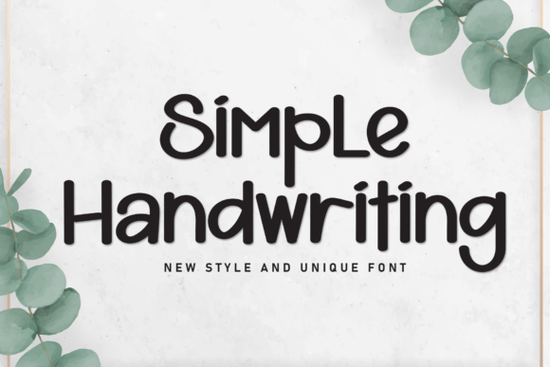
When you need a typeface that feels personal but remains easy to read, the Simple Handwriting Font is a highly reliable choice. It brings a fresh, lighthearted charm to digital layouts without sacrificing legibility. Crafters and small business owners often struggle to find hand-lettered styles that don't look messy on smaller screens or intricate vinyl cuts. This unique display font solves that problem by offering a beautifully human touch with a highly legible structure.
How does it perform on crafting machines?
If you are cutting vinyl with a Cricut or Silhouette, you already know that overly swirly scripts can tear or weed poorly. This typeface avoids those frustrating issues. The comfortable, cozy personality of the letters means the paths are clean and the connections are sturdy. It acts as an instant shortcut for designs that need to feel approachable. You can use it for custom vinyl cutting crafts, knowing the physical cut lines will hold up well during the weeding process and apply smoothly with transfer tape.
What kind of visual vibe does it create?
The font stands out beautifully on its own canvas, especially when set against soft botanical textures or clean pastel backgrounds. It is an exceptional creative choice for cottagecore lifestyle graphics. If you are designing for an artisanal bakery, the warm, inviting strokes look fantastic on food packaging and menu boards. It gives off a friendly, homemade feel that modern consumers really connect with. When you pair it with muted earth tones or soft sage greens, the letters practically jump off the page.
What if I need to mix it with other scripts?
Sometimes a single project needs a bit of variety to keep the viewer engaged. If you are working on a children’s storybook title or a friendly greeting card, you might want to pair it with something slightly more formal or bouncy. You could combine it with the Americana Preserves typeface for a more vintage, rustic look, or try the Wild Honey lettering if you want something a bit sweeter and more playful. For modern social media quotes, pairing it with the Sederhana script can create a nice contrast between casual handwriting and clean lines. If you are building a cohesive brand kit for a subscription box, mixing it with the Subscribery style gives you a great balance of personal and professional typography.
Which specific projects benefit the most from this style?
Because it is so versatile, you can use it across many different mediums. Print-on-demand sellers and digital product creators will find it especially useful. Here are a few ways to get the most out of it:
- Artisanal packaging: Perfect for coffee bags, handmade soap labels, and bakery boxes where a personal touch is expected.
- Social media graphics: Ideal for daily quotes, behind-the-scenes stories, and promotional posts that need to feel authentic.
- Digital printables: Great for daily planners, greeting cards, and nursery wall art.
- Web design: Works well for website headers and buttons that need a personal, boutique feel.
How can I ensure the best results before publishing?
Before you finalize your next design or send a file to the printer, run through this quick checklist:
- Check the contrast between the font color and your pastel or botanical background to ensure it remains highly legible.
- Adjust the letter spacing if you are using it for small vinyl decals to prevent the letters from merging.
- Test the readability by stepping back from your screen or printing a physical proof at actual size.
- Make sure the overall mood matches the cozy, approachable vibe your brand is aiming for.